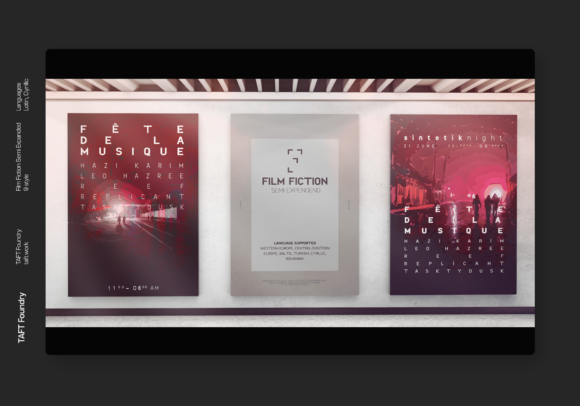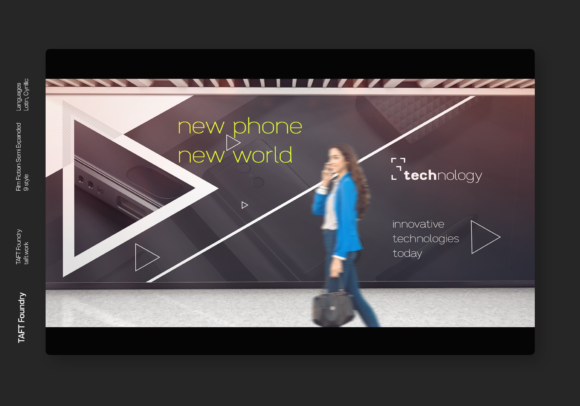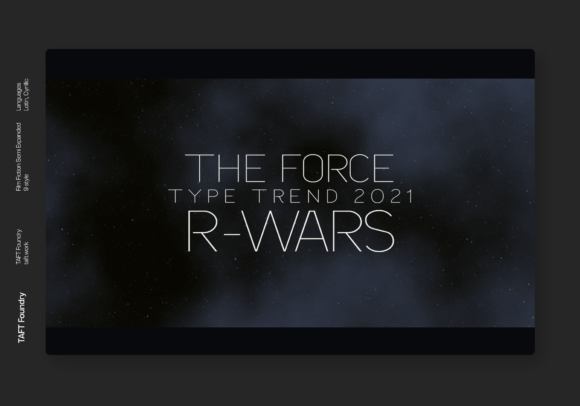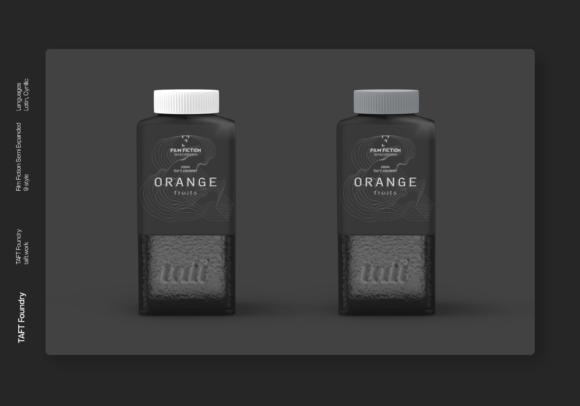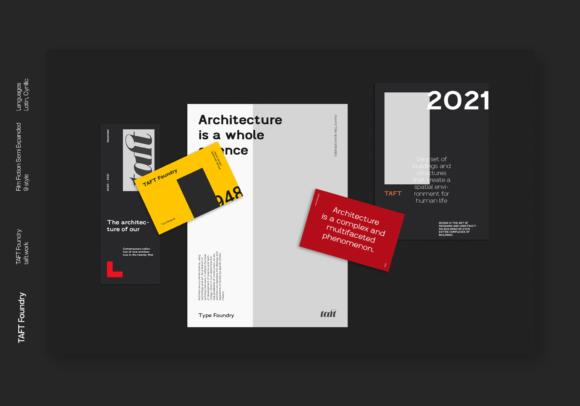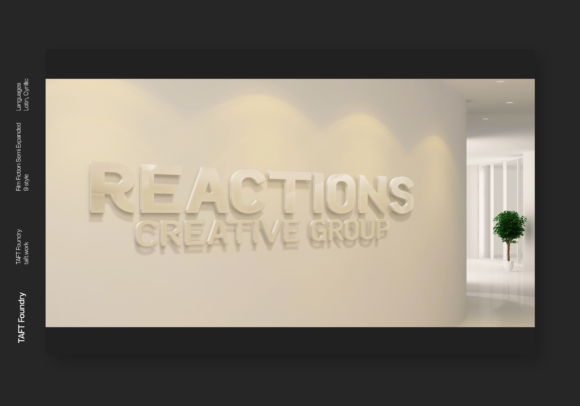
Give Your Designs a Touch of Modern Elegance
Have you ever stared at a blank page, waiting for inspiration to strike? The cursor blinks impatiently, and your mind goes blank. But then, a burst of creativity hits, and you start envisioning the perfect design. It’s moments like these that remind us why we love what we do.
One of the most effective ways to bring your vision to life is by choosing the right font. That’s where Film Fiction Semi-Expanded Font comes in – a clean, modern sans serif font designed to add a smart, cool touch to your web designs, logos, or any project that requires a touch of sophistication. Whether you’re a seasoned designer or just starting out, Film Fiction Semi-Expanded Font is a valuable addition to your toolkit.
Film Fiction Semi-Expanded Font Key Features
- Font Style: Semi-Expanded Font, designed to add a touch of sophistication and elegance to any text-based project.
- Unique Characteristics: Features a unique blend of classic and modern design elements, with subtle flair and texture that adds depth and visual interest to text.
- Language Support: Supports a wide range of languages, including Latin, Cyrillic, and Greek scripts, making it a versatile choice for global applications.
Film Fiction Semi-Expanded Font Review
Overall, I think the Film Fiction Semi-Expanded Font is an interesting addition to the film-inspired font family. ✨ Here are some aspects that I appreciate:
- Its semi-expanded design allows for a clear and readable text layout, which is perfect for body text or longer paragraphs.
- The font’s rounded edges and curved lines give it a friendly and approachable feel, making it suitable for use in a wide range of applications.
- The font supports a wide range of languages, making it a great option for international projects.
However, there are also some limitations to consider: ⚠️
- The font may not be suitable for use in formal or professional settings, as its playful and film-inspired design may not convey the right level of sophistication.
- The font’s character set may not be as comprehensive as some other fonts, which could be a problem for projects that require a wide range of special characters.
Overall, I think the Film Fiction Semi-Expanded Font is a great option for projects that require a fun and approachable design. While it may not be the best choice for every project, it’s definitely worth considering for projects that need a unique and engaging font.
To get the most out of the Film Fiction Semi-Expanded Font, use it sparingly and effectively. This font is ideal for titles, headings, and emphasis, so use it to draw attention to important information.
The Film Fiction Semi-Expanded Font is commonly used in:
- Movie and TV show title sequences.
- Book covers and chapter headings.
- Marketing and advertising materials.
Alternatives to Film Fiction Semi-Expanded Font
Bebas Neue is a sans-serif font known for its clean and modern aesthetic. It is suitable for use in titles, headings, and other prominent text elements where a clear and legible font is desired. Bebas Neue is more geometric and modern compared to Film Fiction Semi-Expanded, which has a more vintage feel. Use Bebas Neue when you want a clean and contemporary look.
Playfair Display is an elegant and luxurious script font, ideal for use in titles, headings, and other text elements where a touch of sophistication is desired. It has a more ornate and refined feel compared to Film Fiction Semi-Expanded, which is more distressed and vintage. Use Playfair Display when you want to add a sense of luxury and elegance to your design.
Montserrat is a sans-serif font designed specifically for use in urban environments. It is highly legible and suitable for use in a variety of contexts, from body text to titles. Montserrat is more modern and clean compared to Film Fiction Semi-Expanded, which has a more worn and vintage feel. Use Montserrat when you want a highly legible and versatile font.